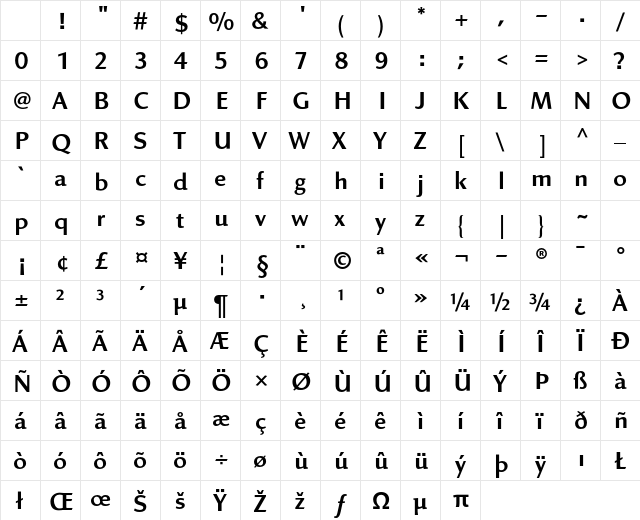
Linex Sans Std Regular
Complete Linex Sans Std Regular glyph index. Displaying only characters natively supported by Linex Sans Std Regular font.
Design Context for Linex Sans Std
Linex Sans Std is a composed and adaptable typeface that performs quietly and consistently across a wide range of design contexts.
Pro Tip: Use Linex Sans Std in both headline and body roles to test its range before committing to a single application.